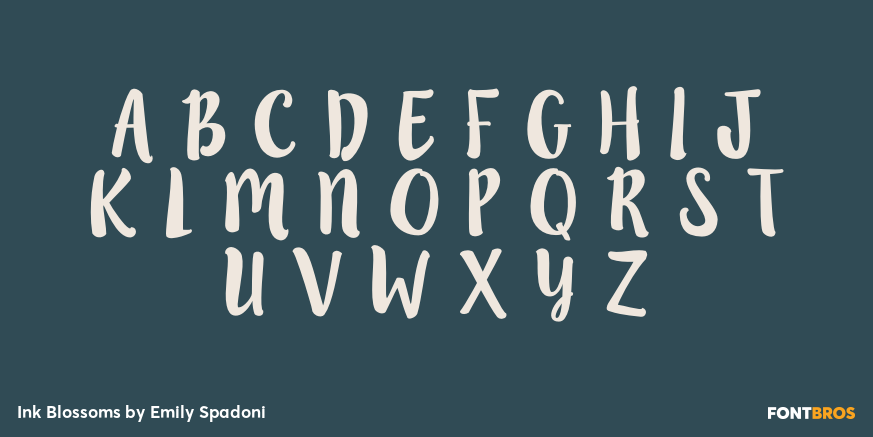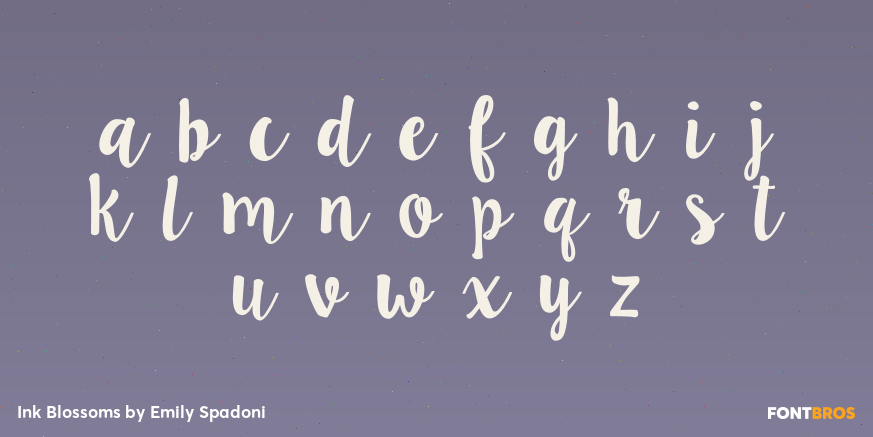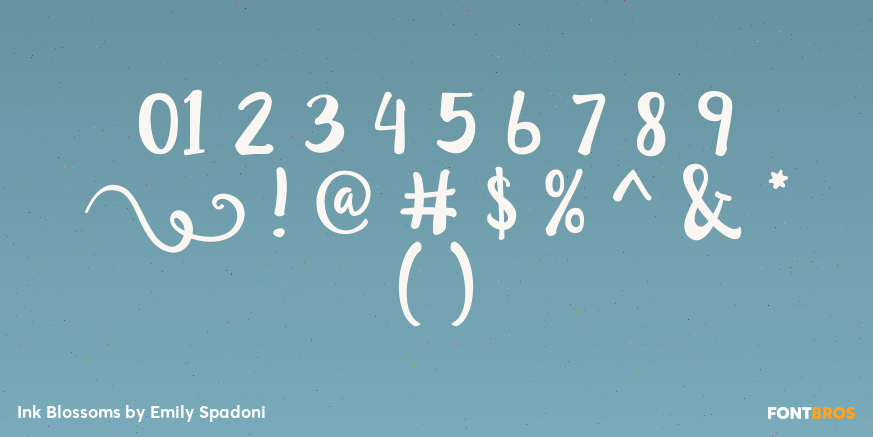
Ink Blossoms
Font Family by Emily Spadoni
Buy NowIntroducing Ink Blossoms! Sweet Types latest hand-drawn typeface. Felt-tipped characters resemble hand-lettered, hand-inked strokes. Use your imagination with this fonts fill to create watercolor, marker, or painted characters.
Ink Blossoms include 2 terminal ornaments to finish your words with decoration, and several other doodles to add the finishing touch to these authentic characters.
Including over 140 different hand-drawn characters for a range of languages and dialects.
*Looking for LillyBelle This is it! (LiilyBelle is a demo version of this font)